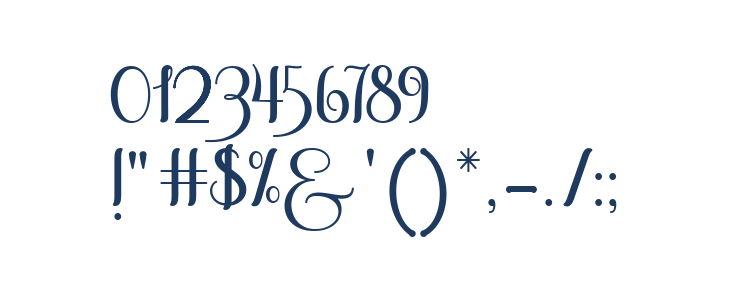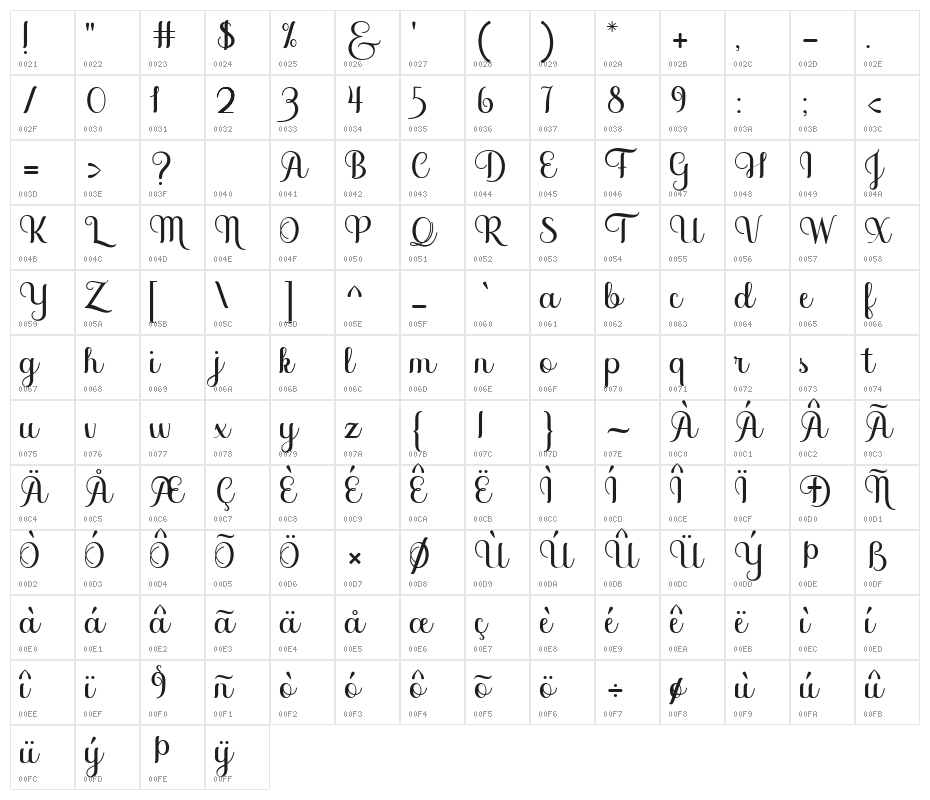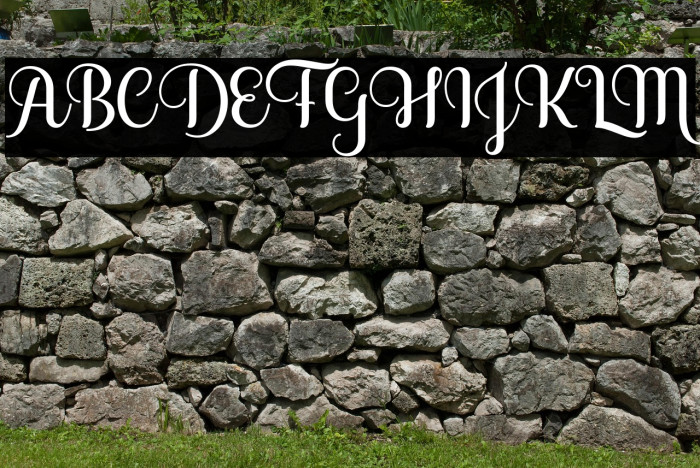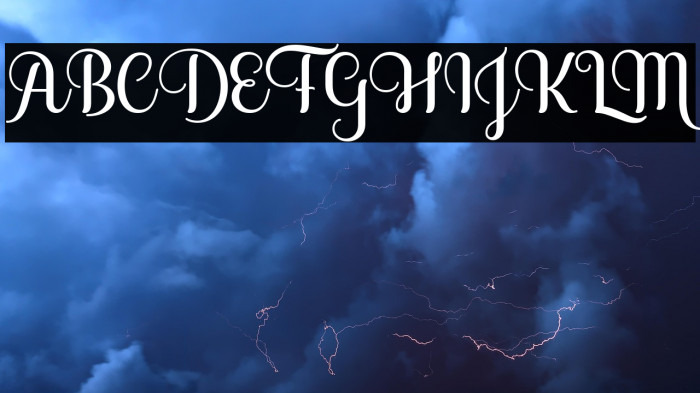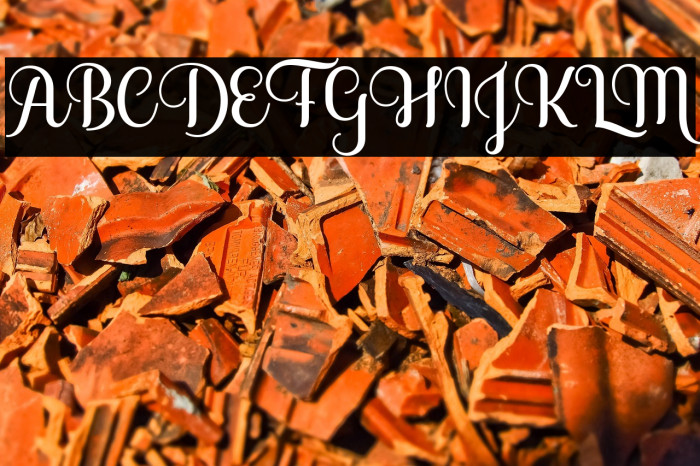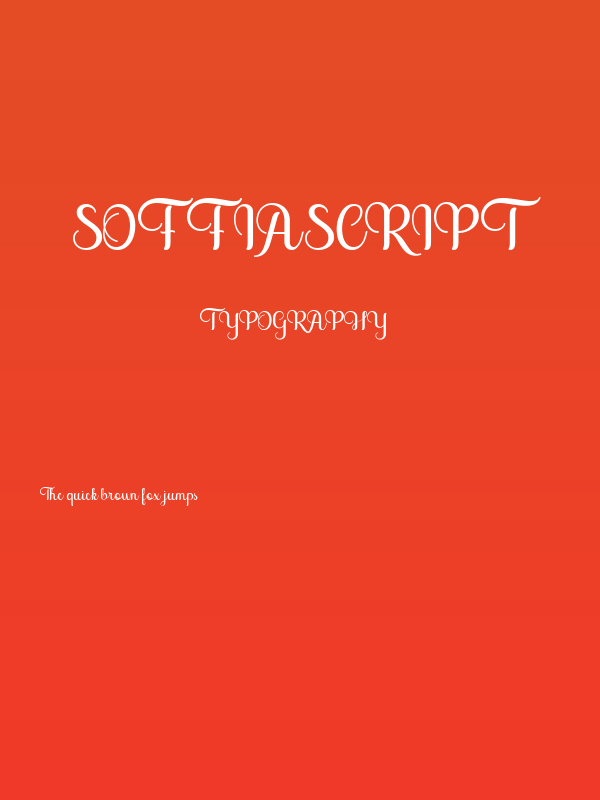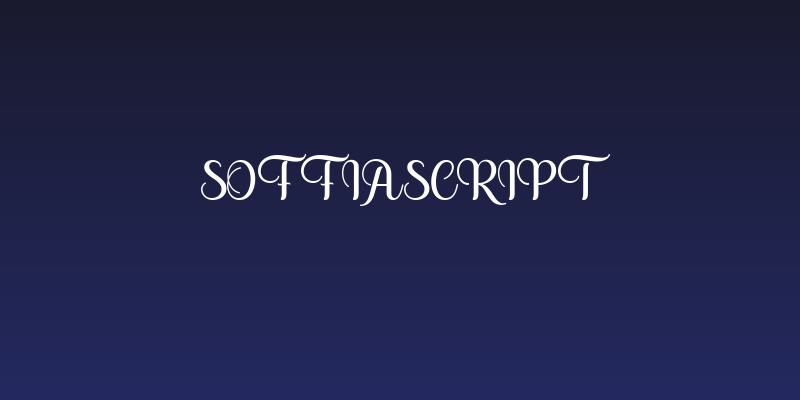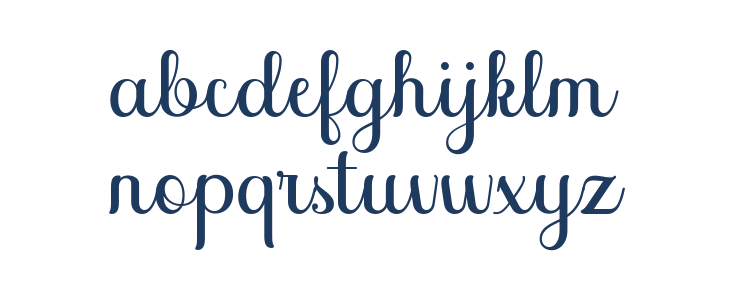
SoffiaScript Font
SoffiaScript Description
This font exudes elegance and sophistication with its flowing script style, characterized by smooth, connected strokes and a graceful, cursive appearance. The uppercase letters feature elaborate swashes and flourishes, adding a touch of drama and flair. The lowercase letters maintain a consistent flow, enhancing readability while retaining an artistic charm. Numbers and special characters are designed with the same fluidity, ensuring a cohesive look across all text elements. This font is perfect for projects that require a touch of elegance and creativity.
Overall StyleElegant, Decorative
Use CaseHeadlines, Invitations, Branding
Proposed ProjectsIdeal for wedding invitations, elegant branding, greeting cards, and decorative headlines.